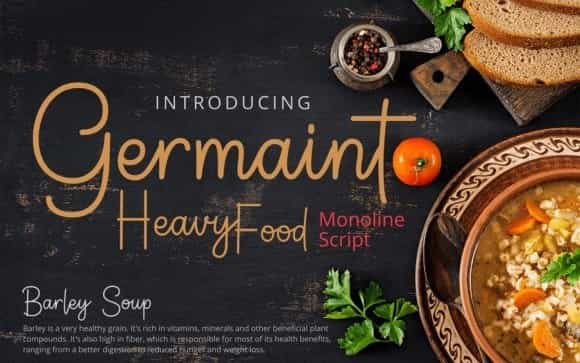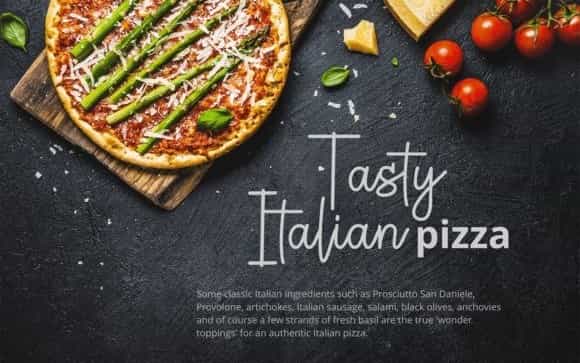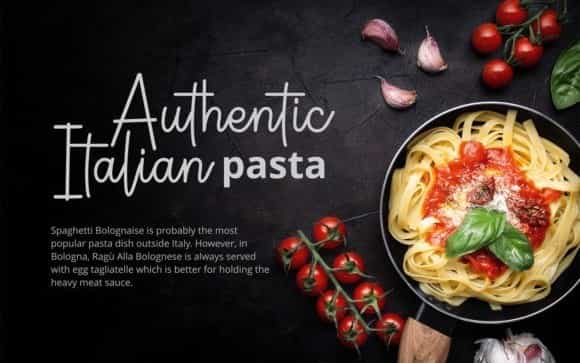
Discover Germaint Script Font, part of the Commercial Handwritten Monoline collection—a versatile and unique font perfect for adding a personal touch to your projects. Download it for free and enjoy crafting designs with style, from invitations to social media posts. This font is available exclusively for personal use, giving you the freedom to create without limits. Unlock your creativity with Germaint Script Font today!
Germaint is a fine script font, which was made with so much care to become the most loved one. It is very informal and at the same time it looks so real, readable and finally can be used in many ways. Germaint will be the best in any situation, if it is used on a busy background or as an independent header!